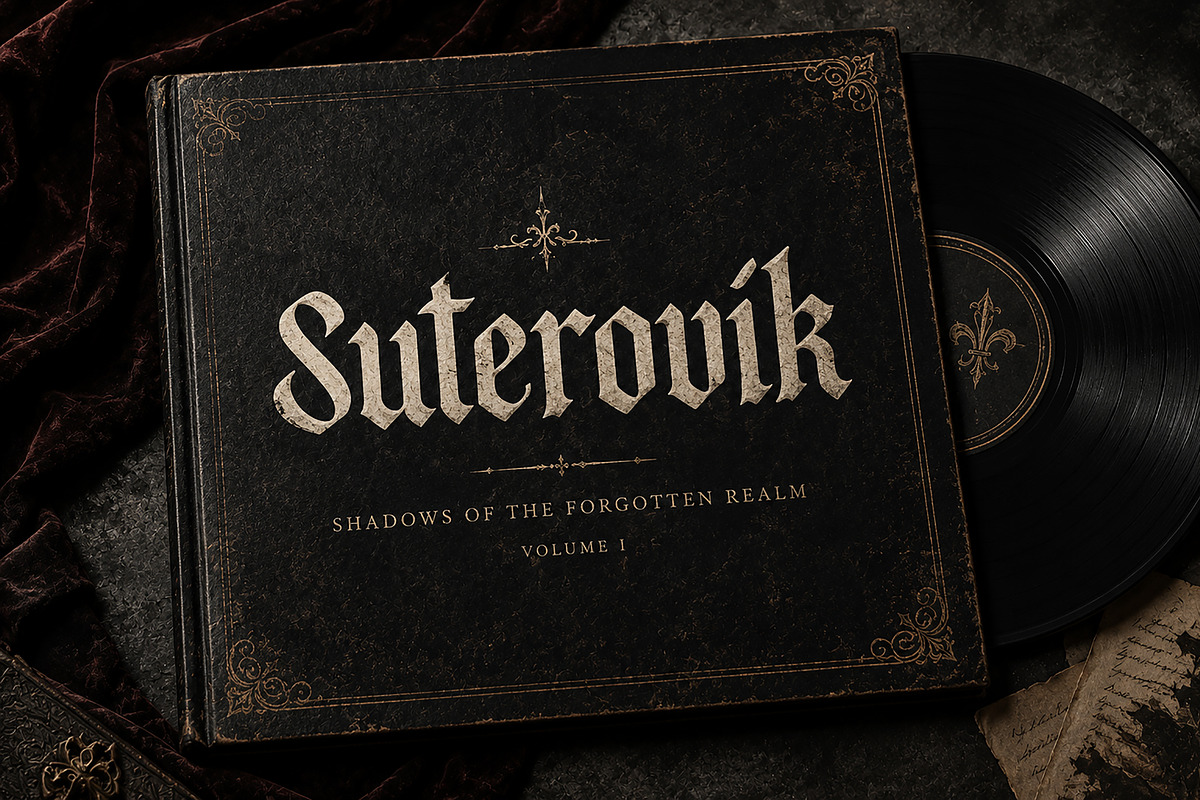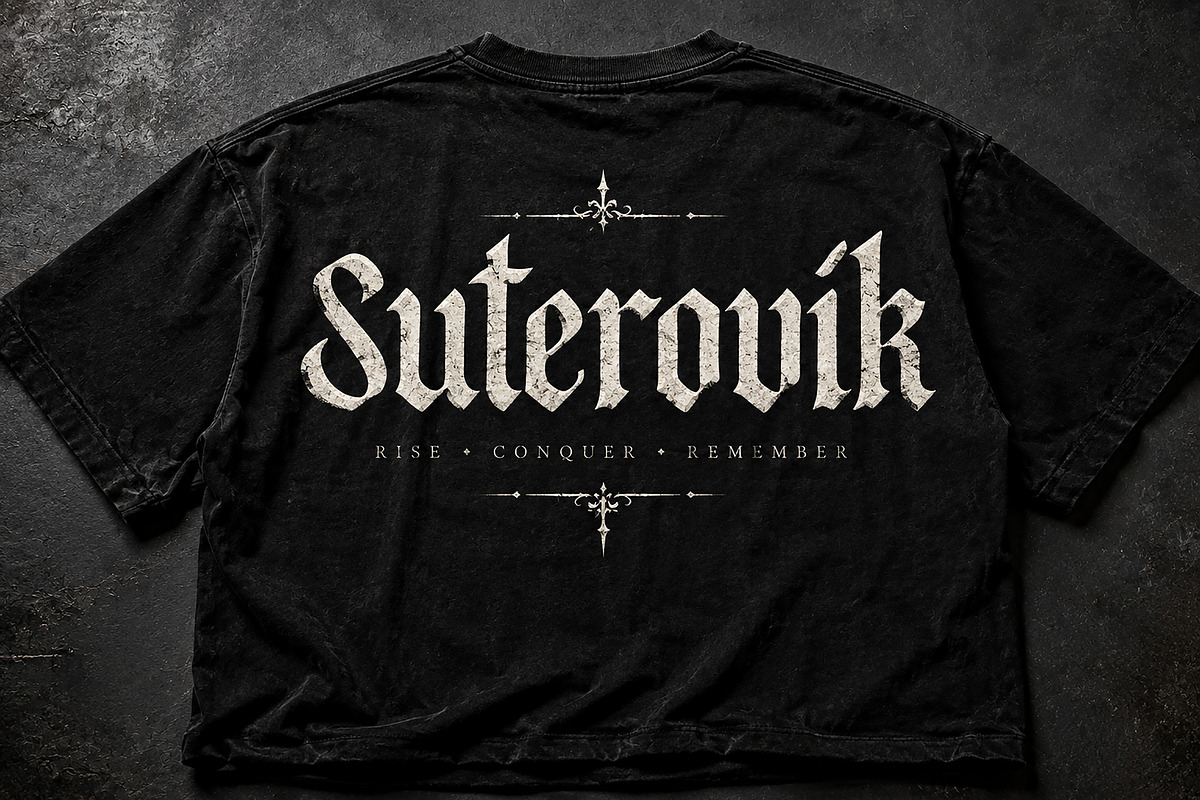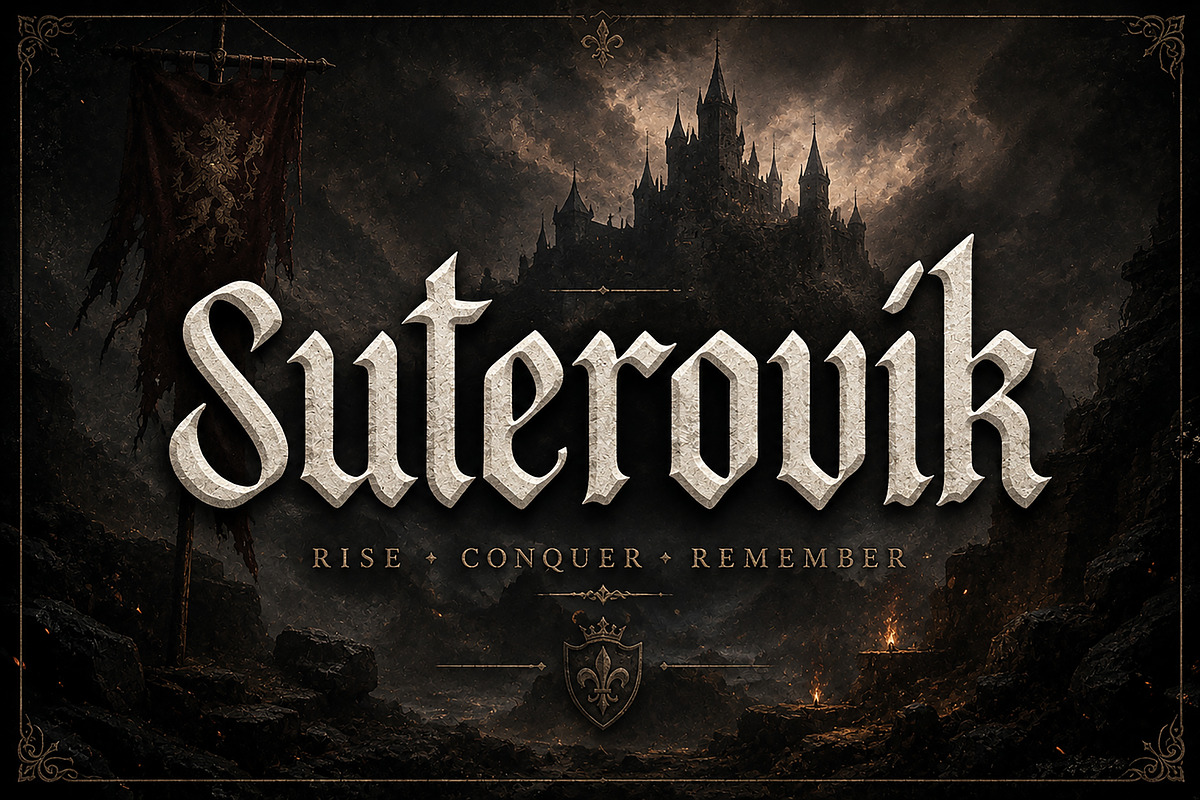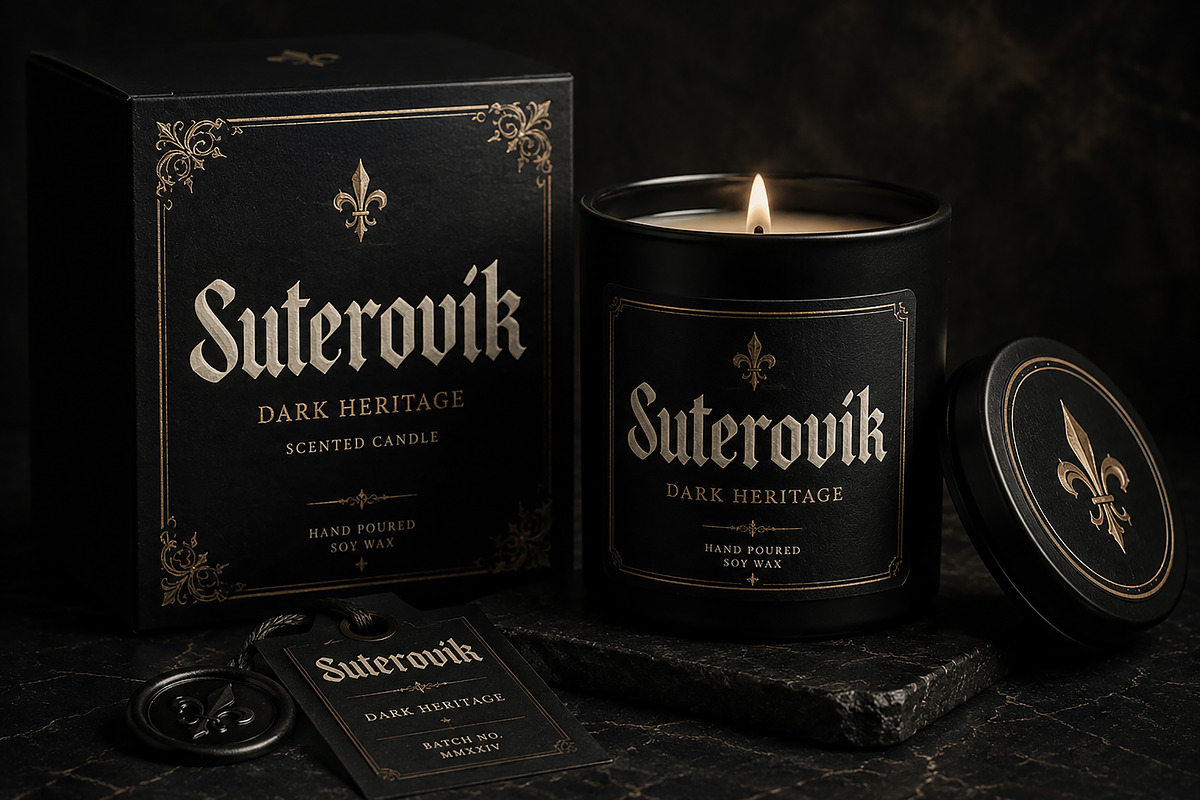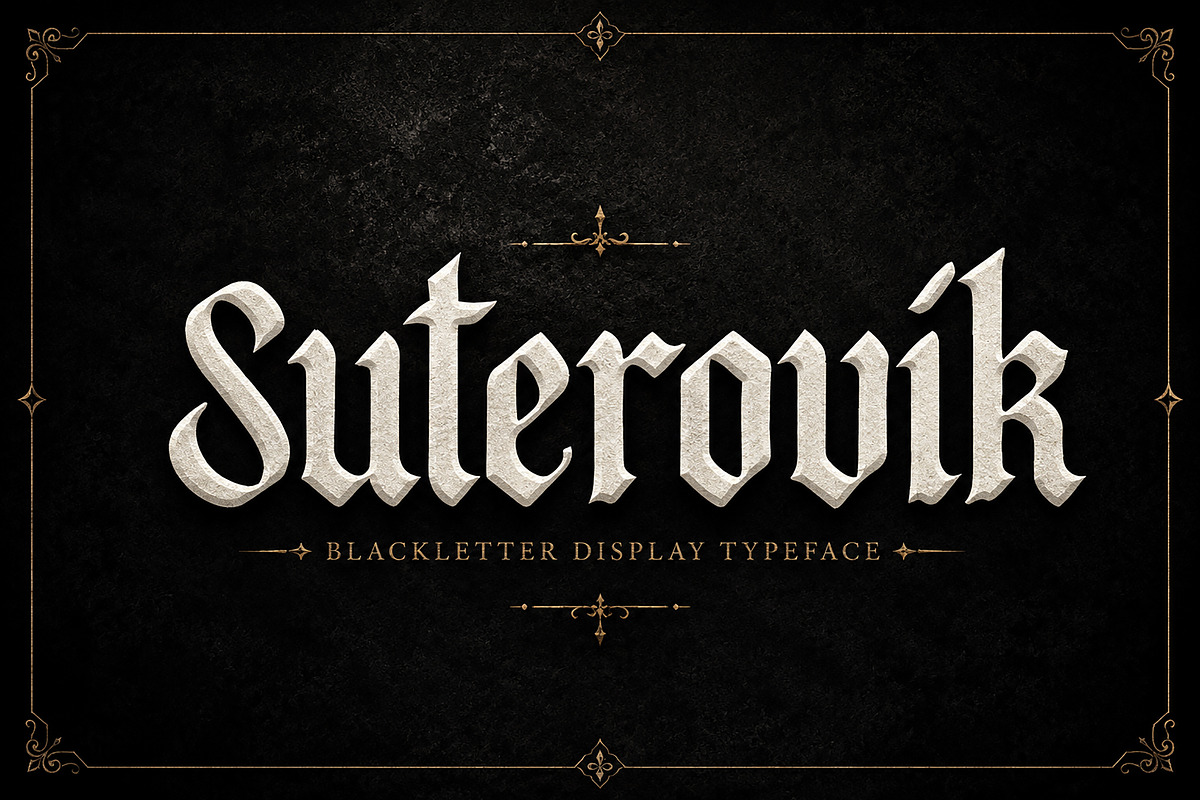
Suterovik
Suterovik — Gothic Blackletter Font
Description
Suterovik is a bold and dramatic Gothic Blackletter display font designed to bring a powerful medieval character to your creative projects. Featuring sharp angular forms, distinctive blackletter details, and a strong historical aesthetic, Suterovik is perfect for designs that need an authentic dark, powerful, and sophisticated look.
Its striking letterforms make it especially effective for logos, branding, apparel, album covers, book covers, posters, labels, packaging, merchandise, tattoos, gaming graphics, and fantasy-inspired designs.
Whether you're creating a medieval-inspired brand, a heavy metal band identity, dark streetwear artwork, fantasy artwork, or premium gothic packaging, Suterovik gives your typography an instantly recognizable presence.
Gothic & Blackletter Logos
Medieval Branding
Streetwear & T-Shirt Designs
Heavy Metal & Band Merchandise
Album & Music Covers
Book & Novel Covers
Fantasy & Dark-Themed Artwork
Posters & Promotional Graphics
Product Labels & Packaging
Tattoo-Inspired Designs
Gaming & Esports Graphics
Badges, Emblems & Crests
Luxury Gothic Branding
Merchandise & Print Design
Font Name: Suterovik
Style: Gothic / Blackletter / Medieval / Display
Suterovik is an excellent choice when you want your typography to feel bold, historic, mysterious, powerful, and unmistakably gothic.